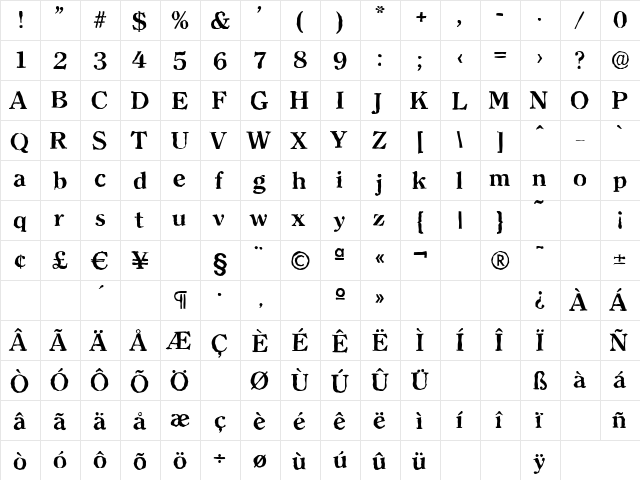
ClearfaceAntique Bold
Bold · SoftMaker Software GmbH SoftMaker Software GmbH ·
Foundry SoftMaker Software GmbH
FoundrySoftMaker Software GmbH
DesignerSoftMaker Software GmbH
Design Context for ClearfaceAntique Typeface
ClearfaceAntique has the warm character of retro typography — evoking diners, record sleeves, and the golden age of print advertising. Its bold stroke weight gives it real presence on the page.
Font Pairing: Combine ClearfaceAntique with a simple slab or neutral sans — period-accurate companions reinforce the vintage feel without competing for attention.
Pro Tip: Use ClearfaceAntique for headlines and pull quotes rather than body copy — its personality is best appreciated in short, focused bursts.